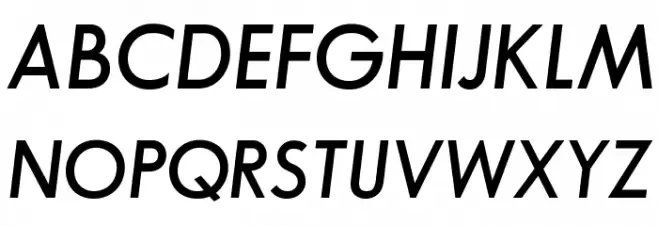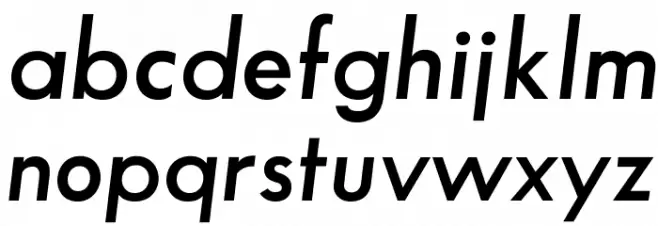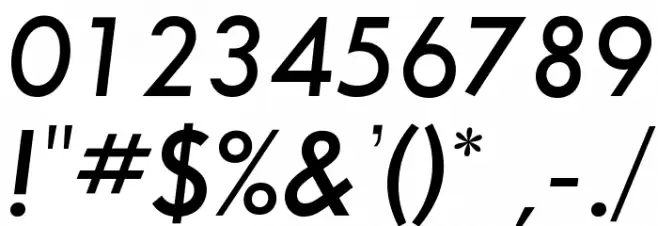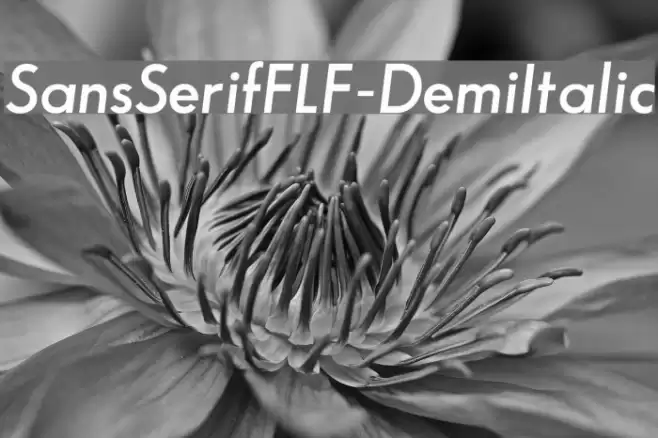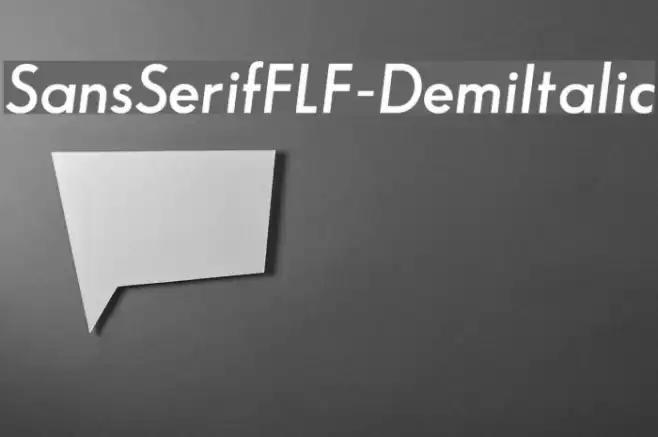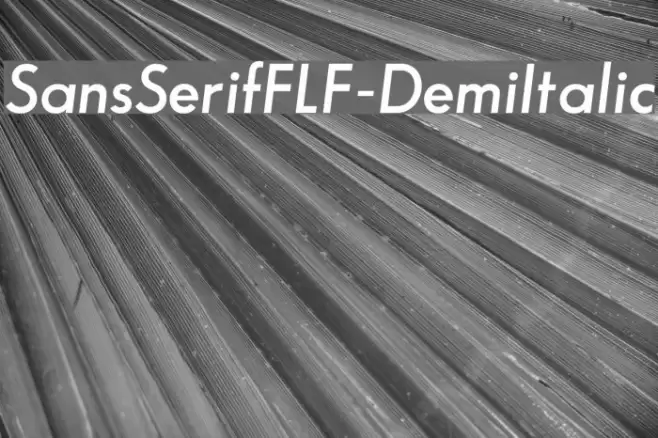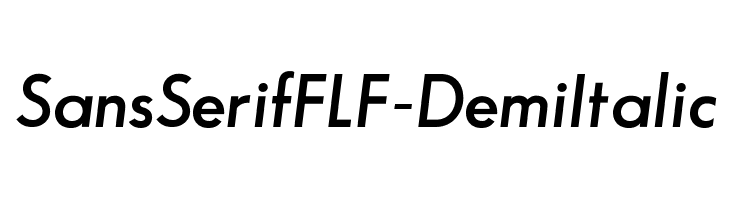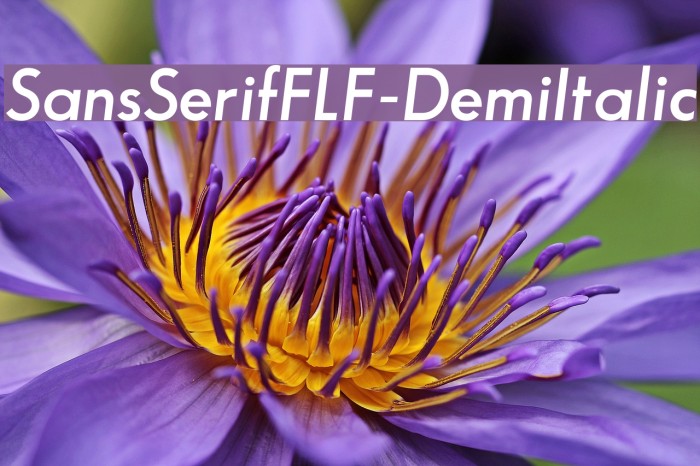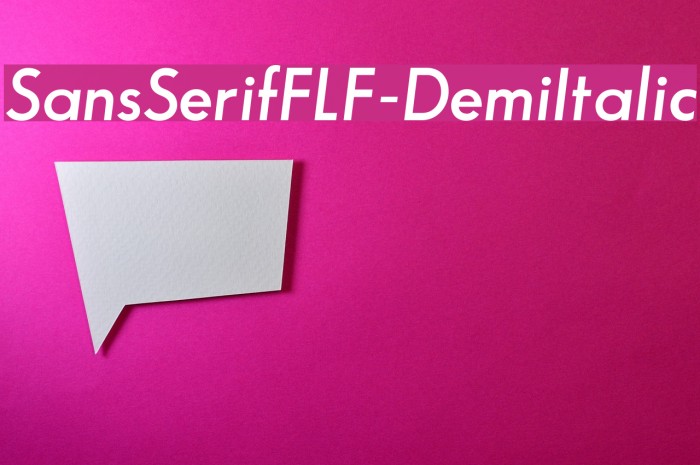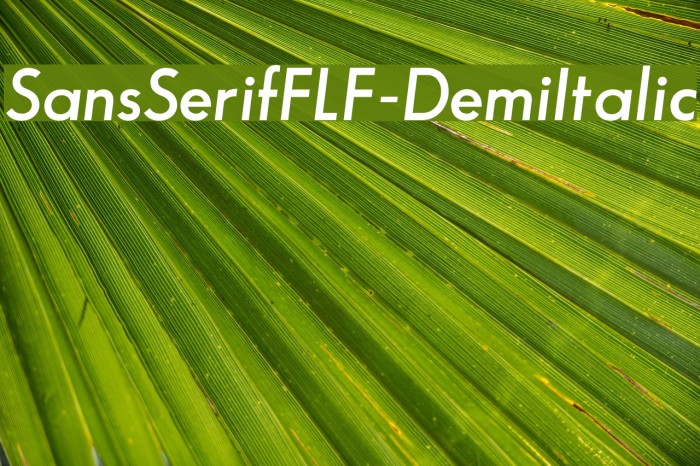
SansSerifFLF-DemiItalic
This font features a clean and modern sans-serif style with a slight italic slant, giving it a dynamic and forward-leaning appearance. The characters are well-proportioned, with smooth curves and sharp edges that create a sense of precision and clarity. The uppercase letters are bold and assertive, while the lowercase letters maintain a consistent flow, enhancing readability. The numerals are distinct and easy to distinguish, making them suitable for various applications. Special characters are included, maintaining the font's cohesive design. Overall, this font is versatile and can be used in a variety of settings where a contemporary and professional look is desired.
A modern sans-serif font with an italic slant, offering clarity and precision.